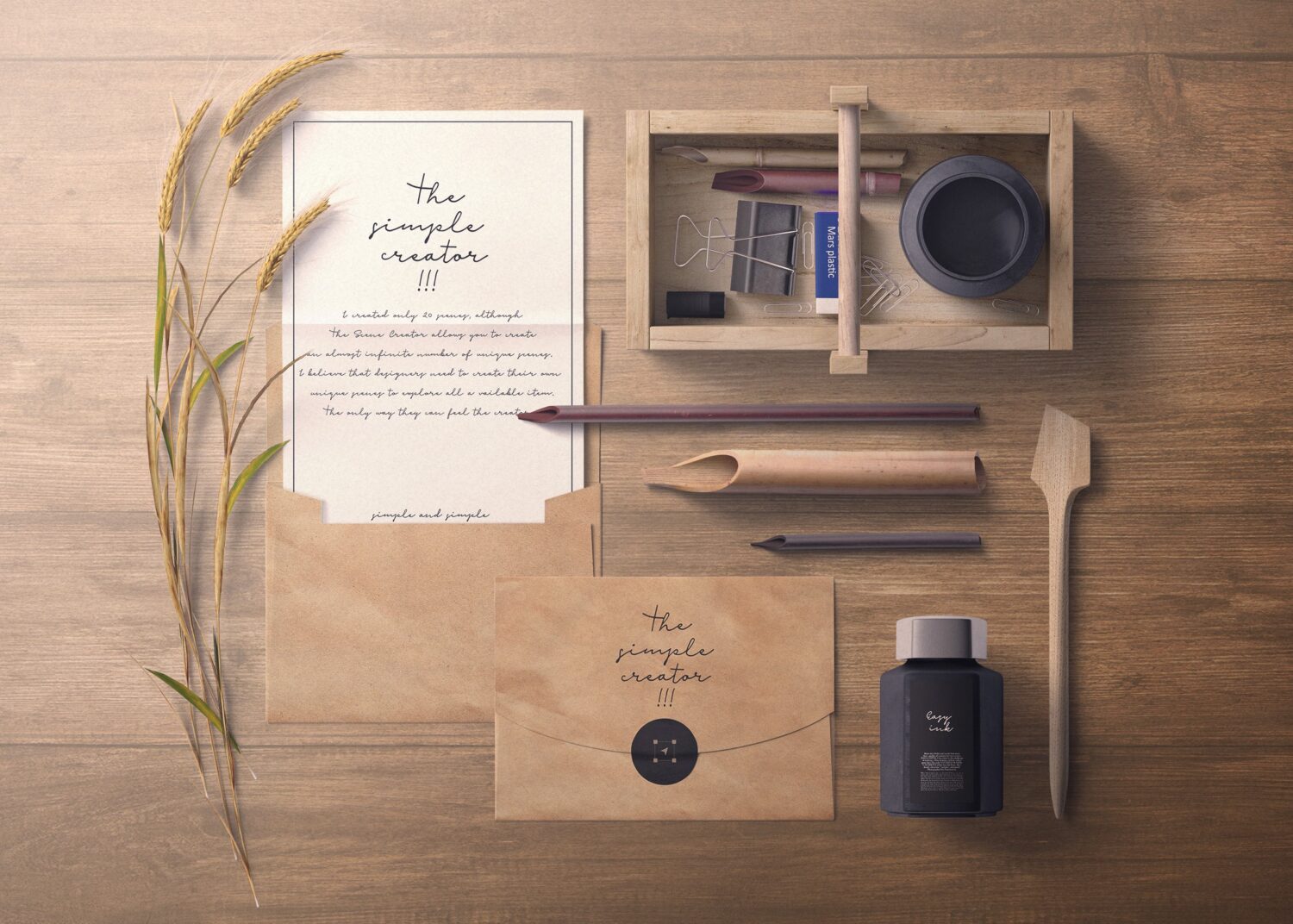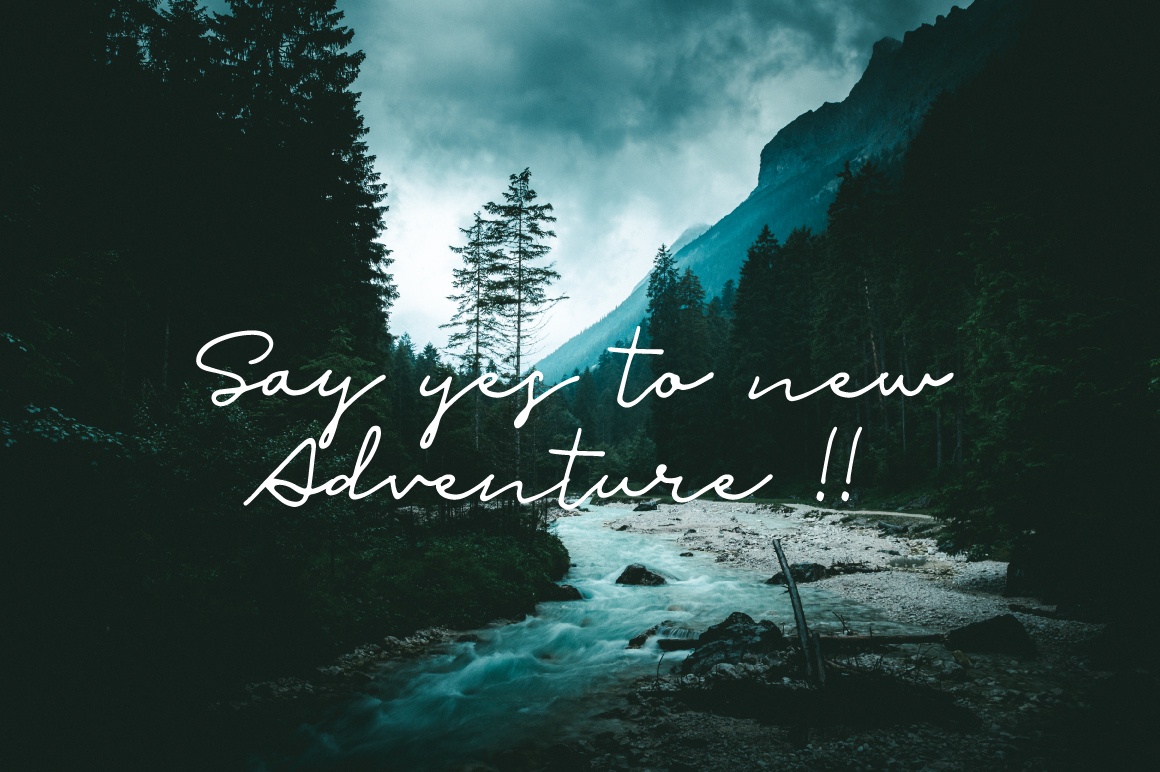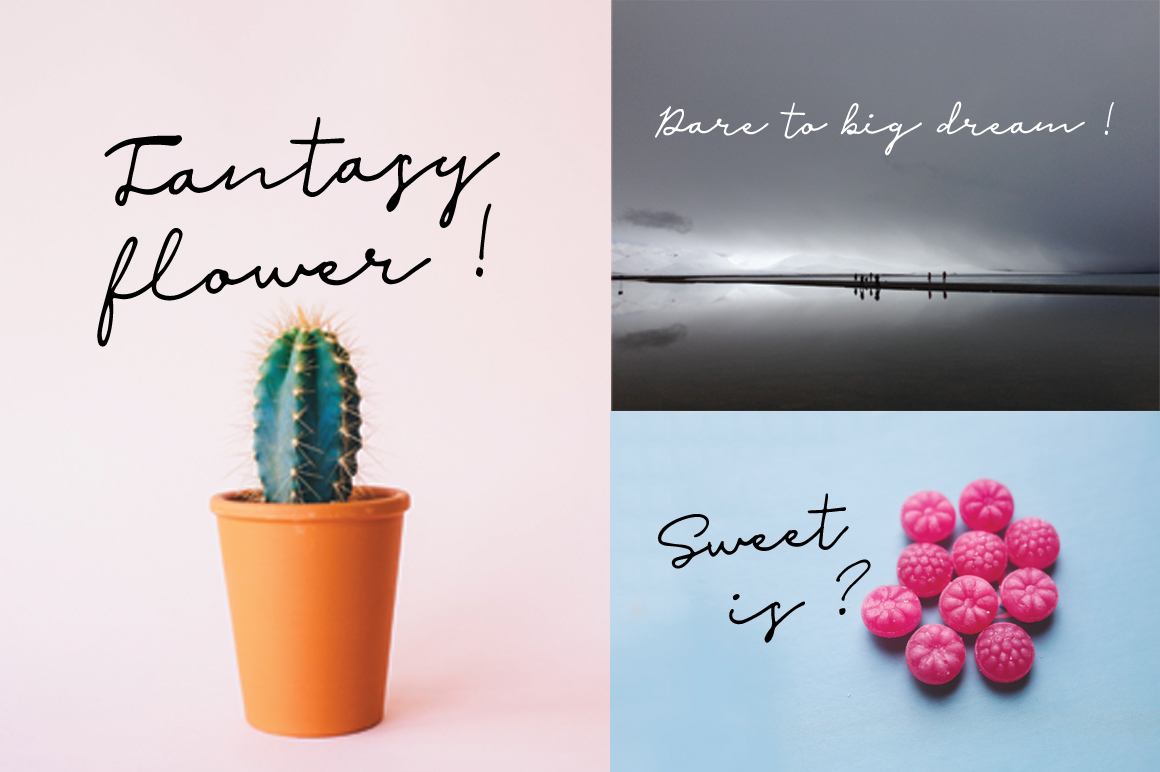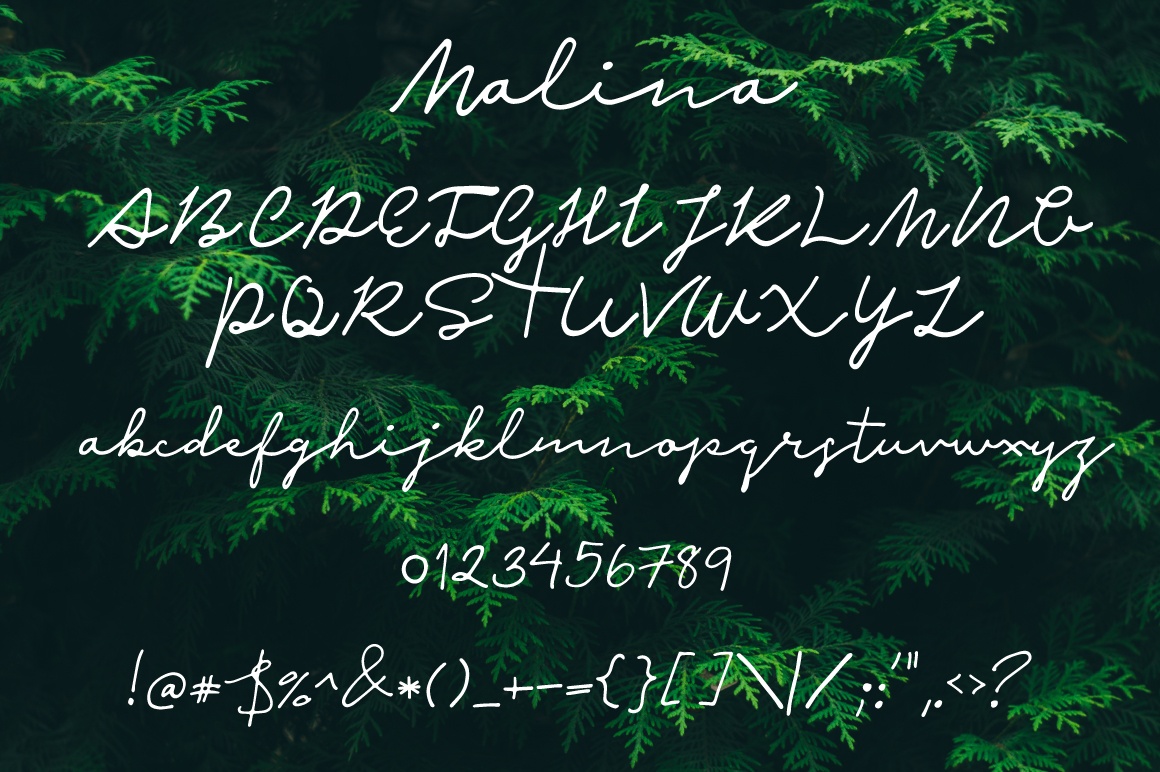
Malina Free Font
Malina Free Font is perfect for wedding invitation or your blog. Also with their help, you can create a logo or a beautiful frame for your home. Or just use for your small business, book covers, stationery, and more. This free typeface was designed by a talented Paulaย A. If you like it donโ€™t forget to check out the full version.